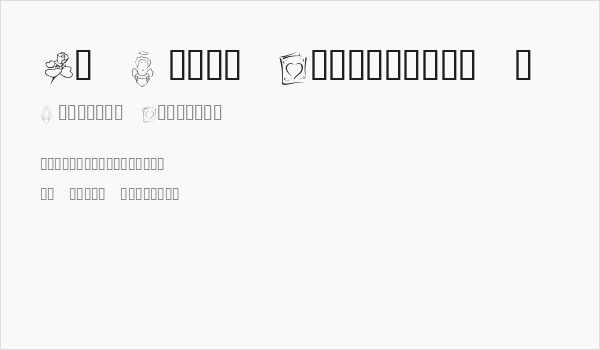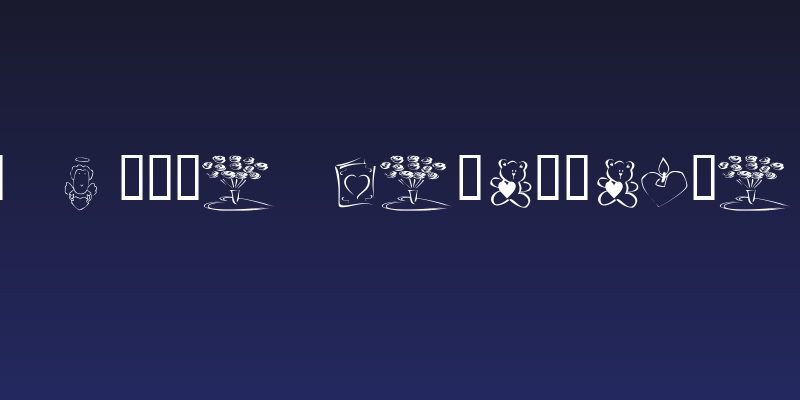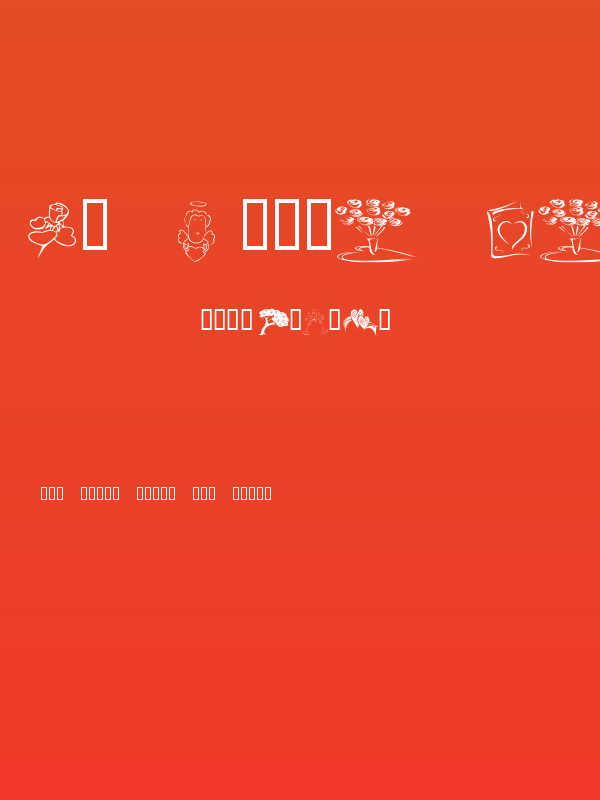
KR Cuori Divertenti 8 Font
KR Cuori Divertenti 8 Description
This font is a playful and whimsical collection of heart-themed illustrations and characters, perfect for adding a touch of romance and fun to any design. Each character is creatively designed with elements of love and affection, making it ideal for Valentine's Day projects or any occasion that calls for a charming and lighthearted touch. The font includes a variety of unique symbols and characters, each with its own distinct style, ensuring versatility and creativity in design applications.
| Overall Style | Playful, Romantic |
| Use Case | Logos, Headlines, Decorative elements |
| Proposed Projects | Ideal for Valentine's Day cards, wedding invitations, love-themed posters, and playful graphic designs. |